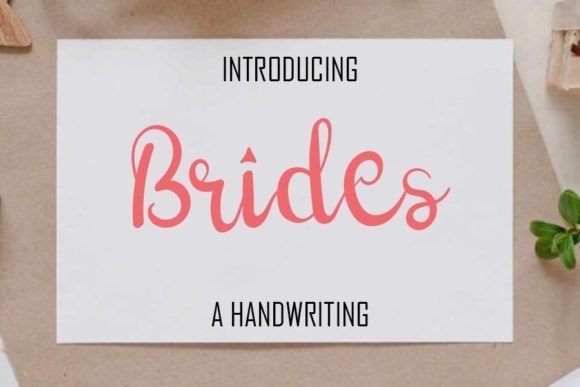
Dare to be different and let your designs bloom with Brides Font - a playful, hand-crafted script font that captures the essence of artistry and personal expression. This family of dazzling characters boasts a script style that adds a touch of charm and elegance to any project.
Brides Font is not just a collection of letters; it's an invitation to let your creativity run wild. Whether you're designing logos, branding, social media posts, or simply adding a personal touch to your digital creations, Brides Font will elevate your work to new heights.
Step into a world of limitless possibilities, where words dance across the screen with a touch of magic. Brides Font is the perfect choice for those seeking a font that speaks to their individuality. Its whimsical and carefree nature brings a sense of joy and playfulness to any design.
So, unleash your inner artist and let Brides Font take center stage in your next project. Embrace the beauty of uniqueness and make a statement that reflects your true self. Get ready to be captivated by the charm of Brides Font - the ultimate expression of creativity and style.
Remember, the only limit is your imagination. Embrace the power of Brides Font today and watch your designs come alive with a touch of brilliance.